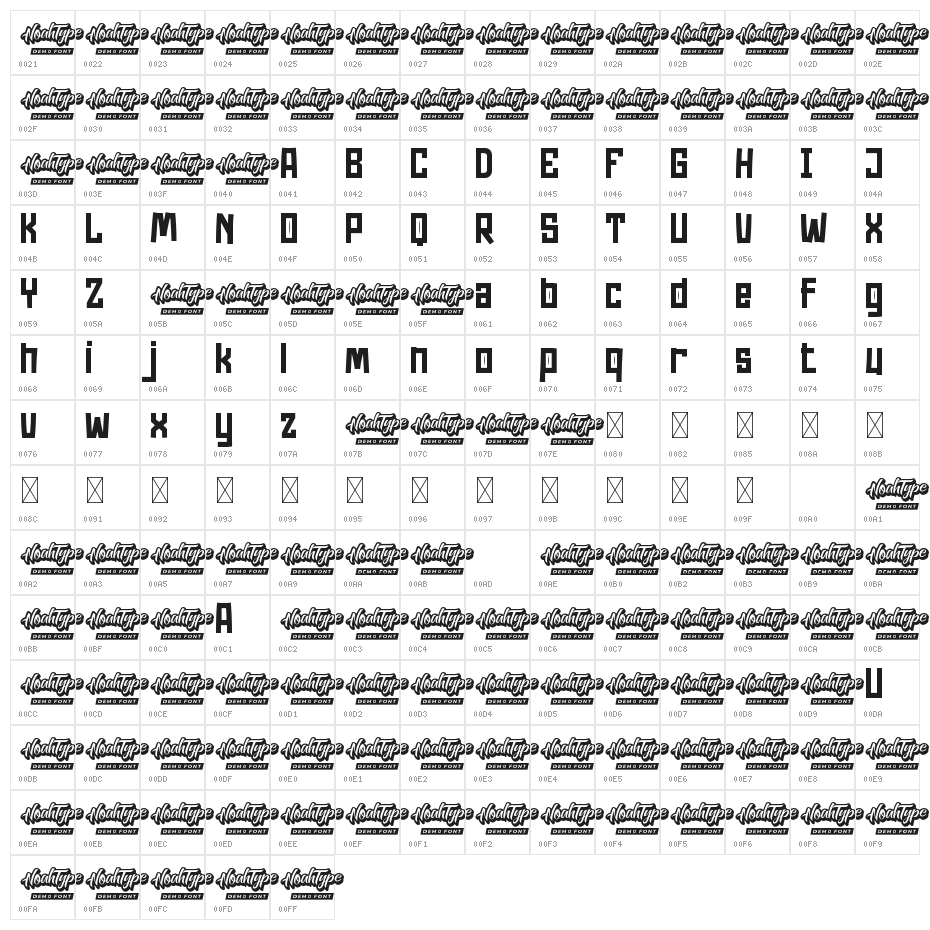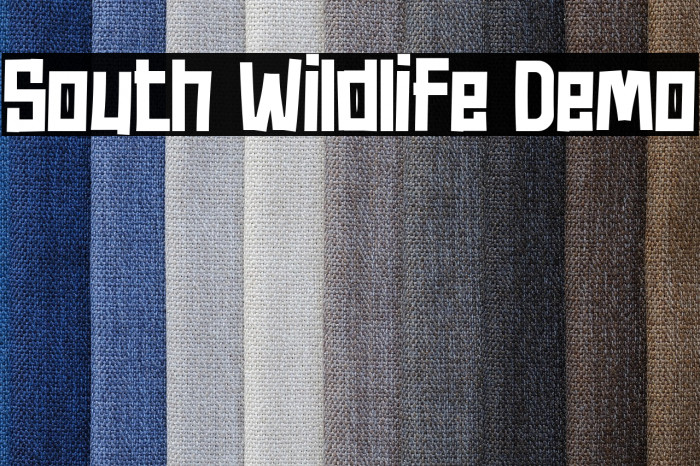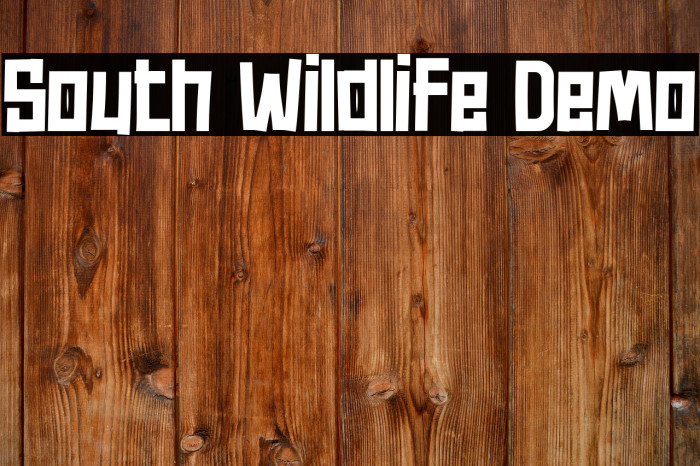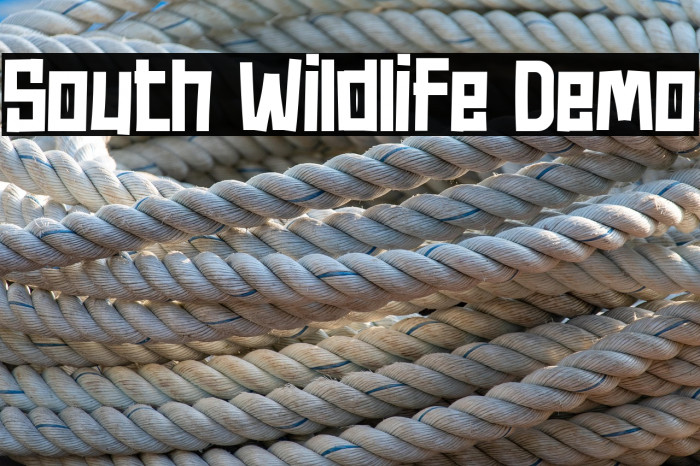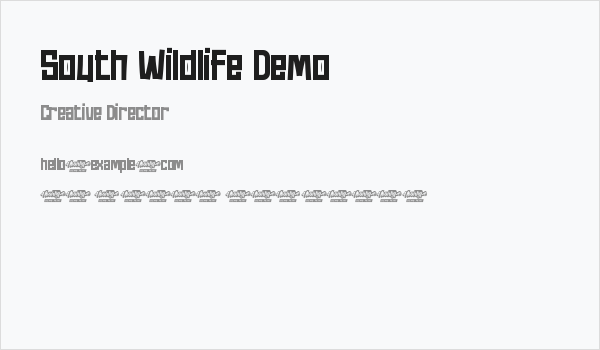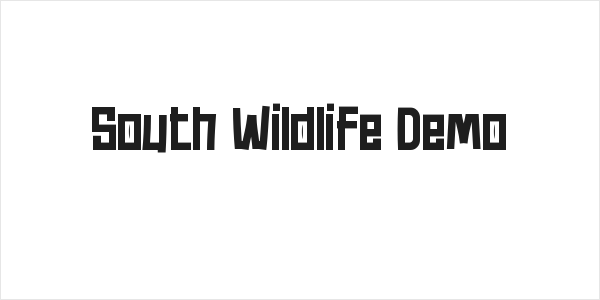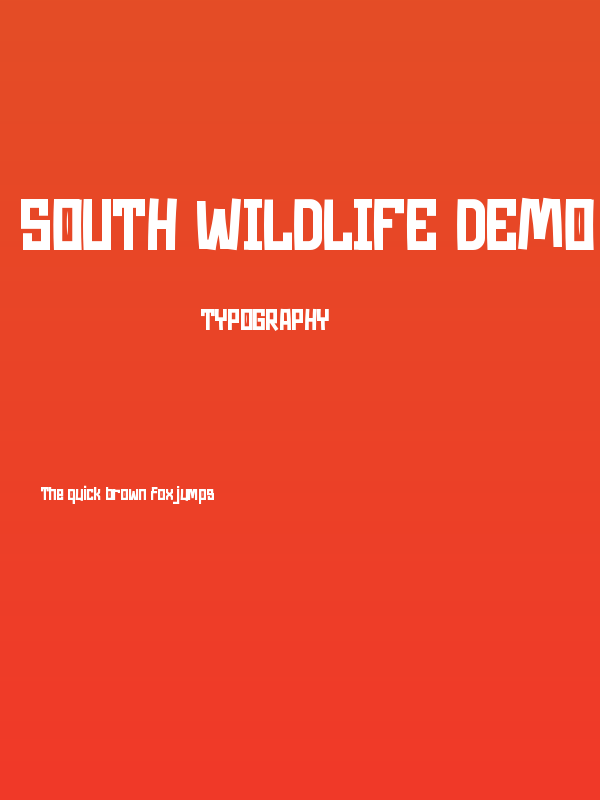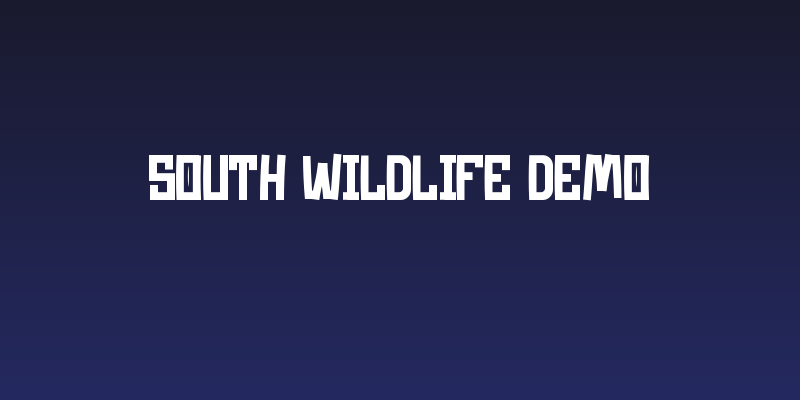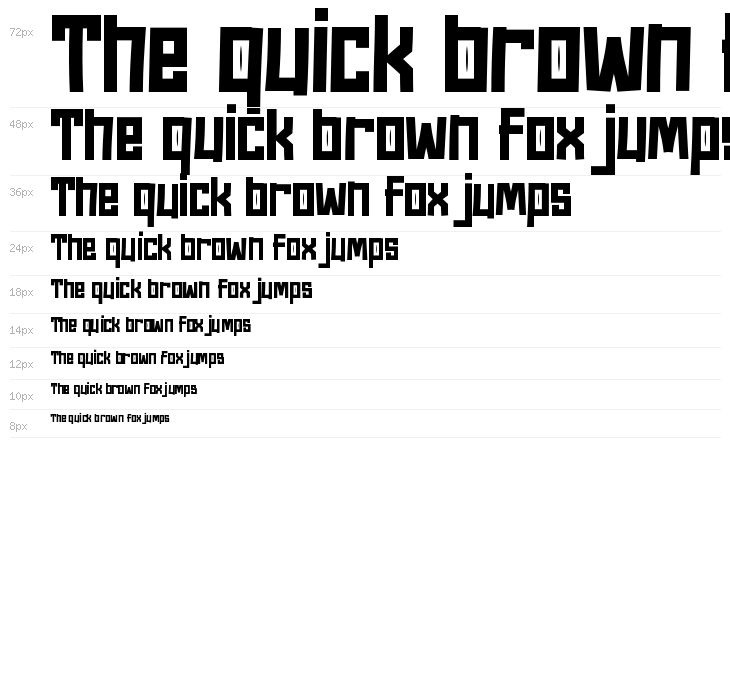
South Wildlife Demo Font
South Wildlife Demo Description
This font exhibits a bold and striking appearance with its blocky, geometric letterforms. The uppercase and lowercase characters maintain a consistent width, creating a uniform look that is both modern and edgy. The angular design of the letters gives it a unique, almost futuristic feel, while the thick strokes ensure high visibility and impact. The font's style is reminiscent of urban or graffiti art, making it suitable for projects that require a strong visual statement. Its distinctive character shapes, particularly the angular cuts and sharp edges, contribute to its dynamic and energetic aesthetic.